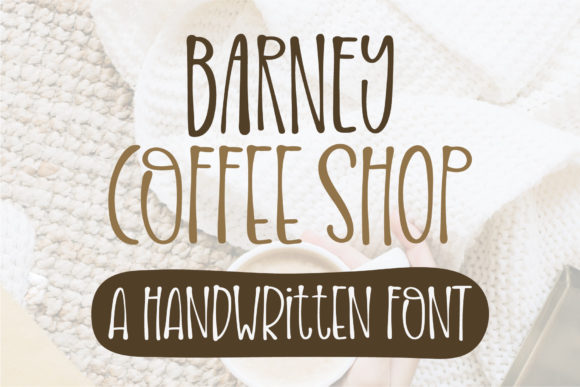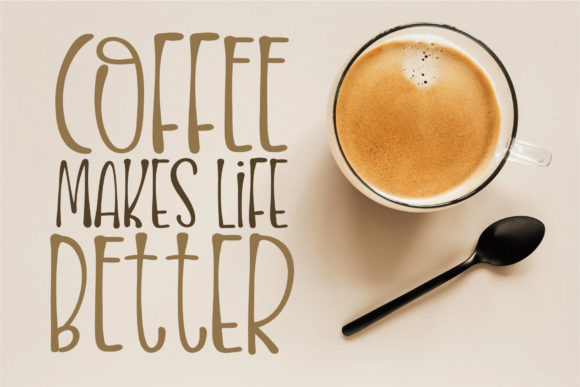
About Barney Coffee Shop Font
Barney Coffee Shop is a fun and informal handwritten font. Its natural and unique style makes it incredibly fitting to a large pool of designs. The only limit is your imagination!